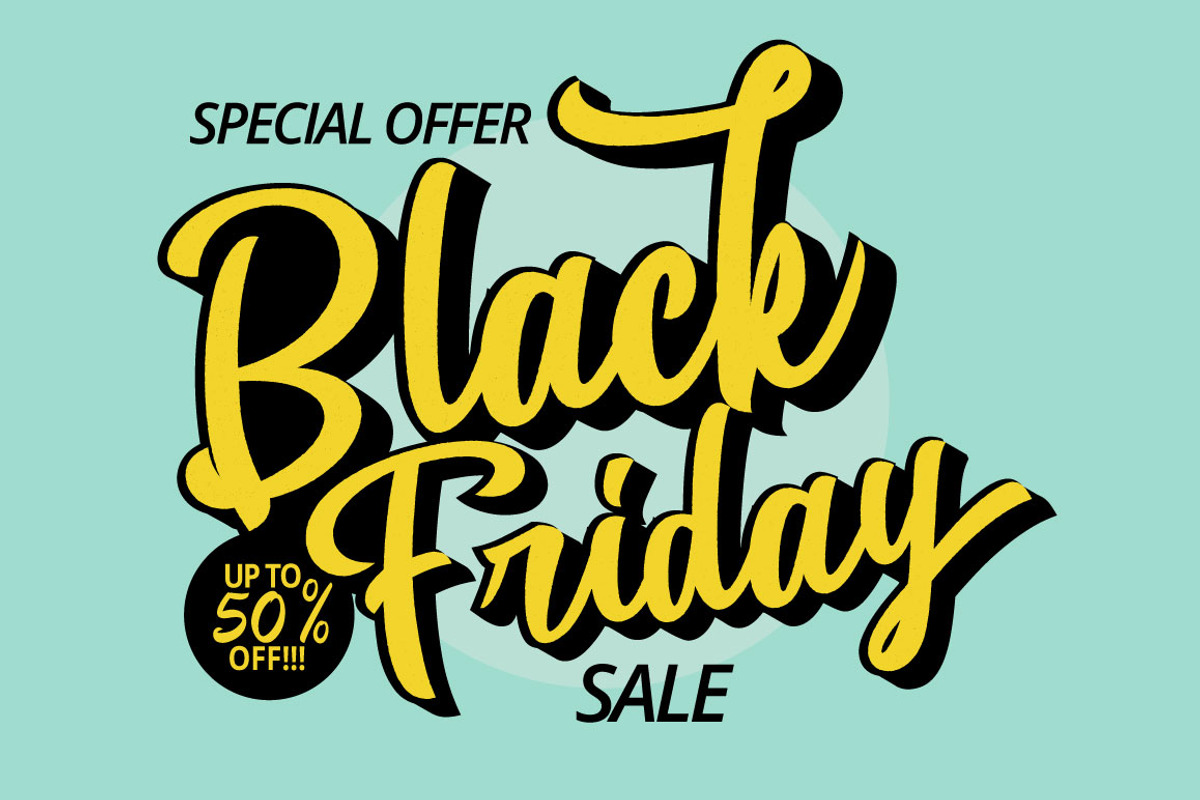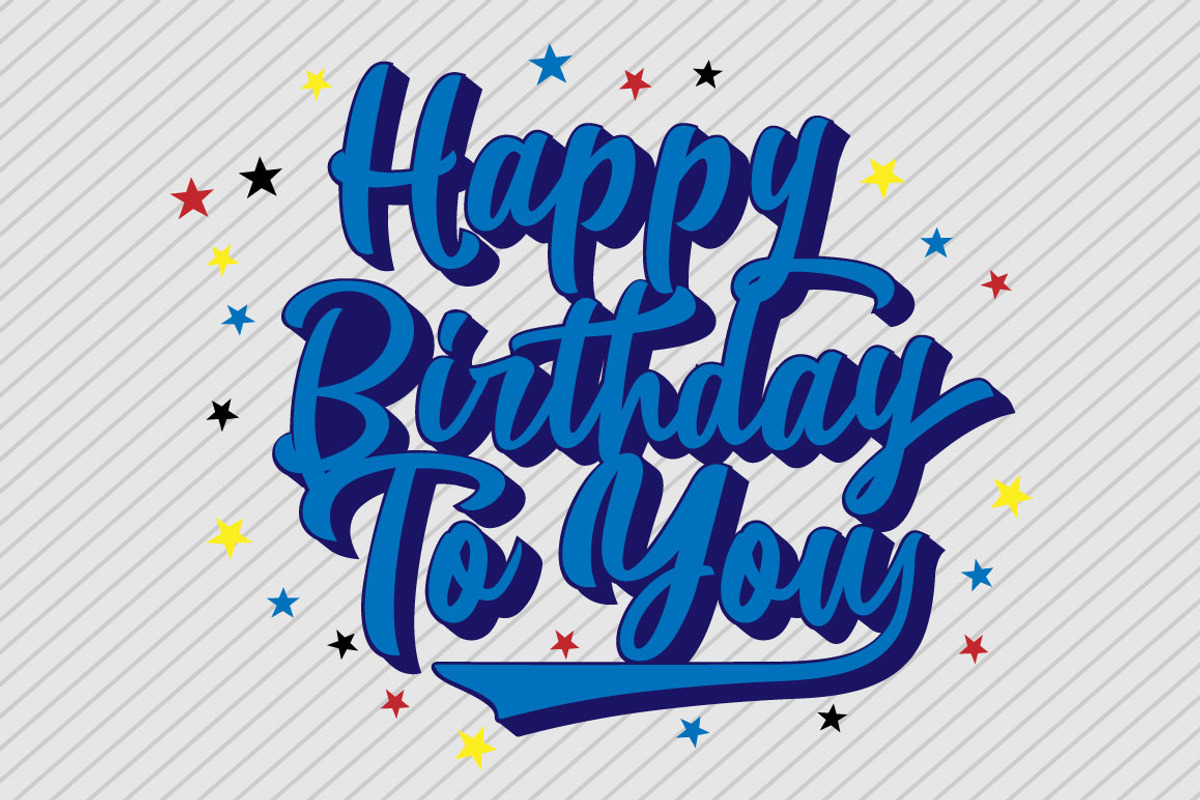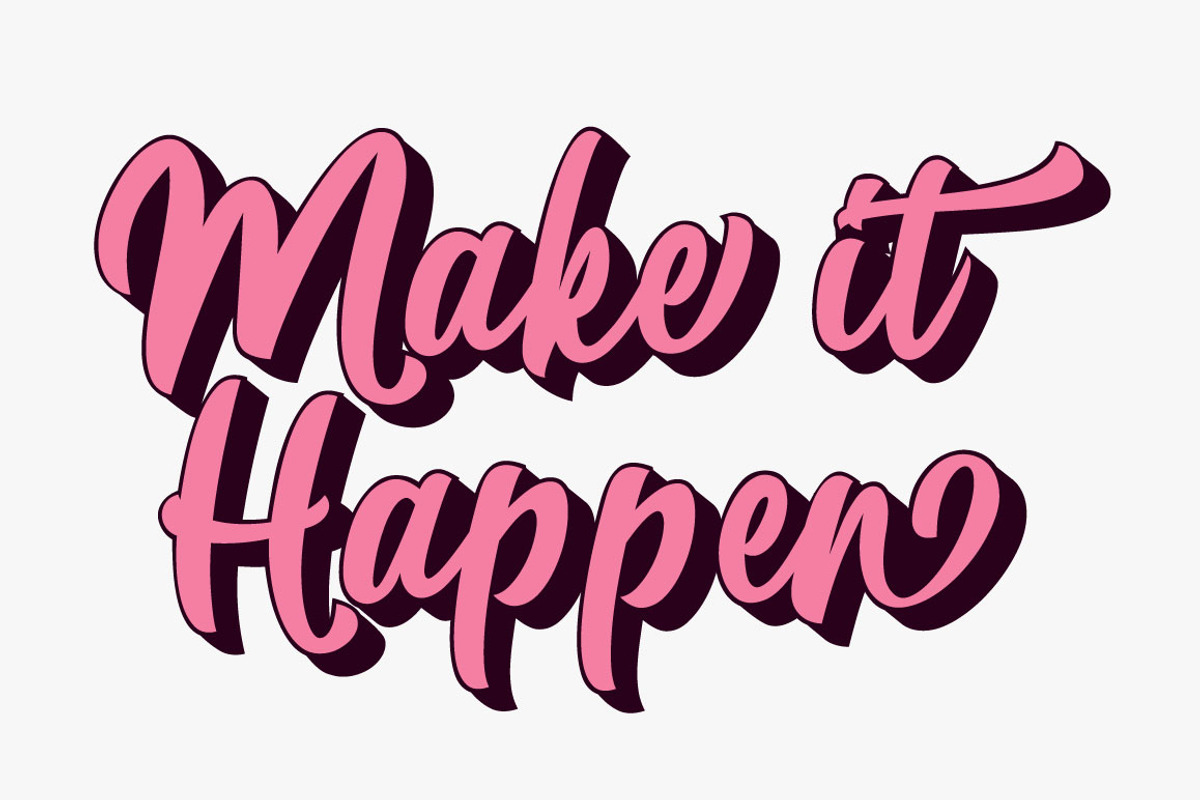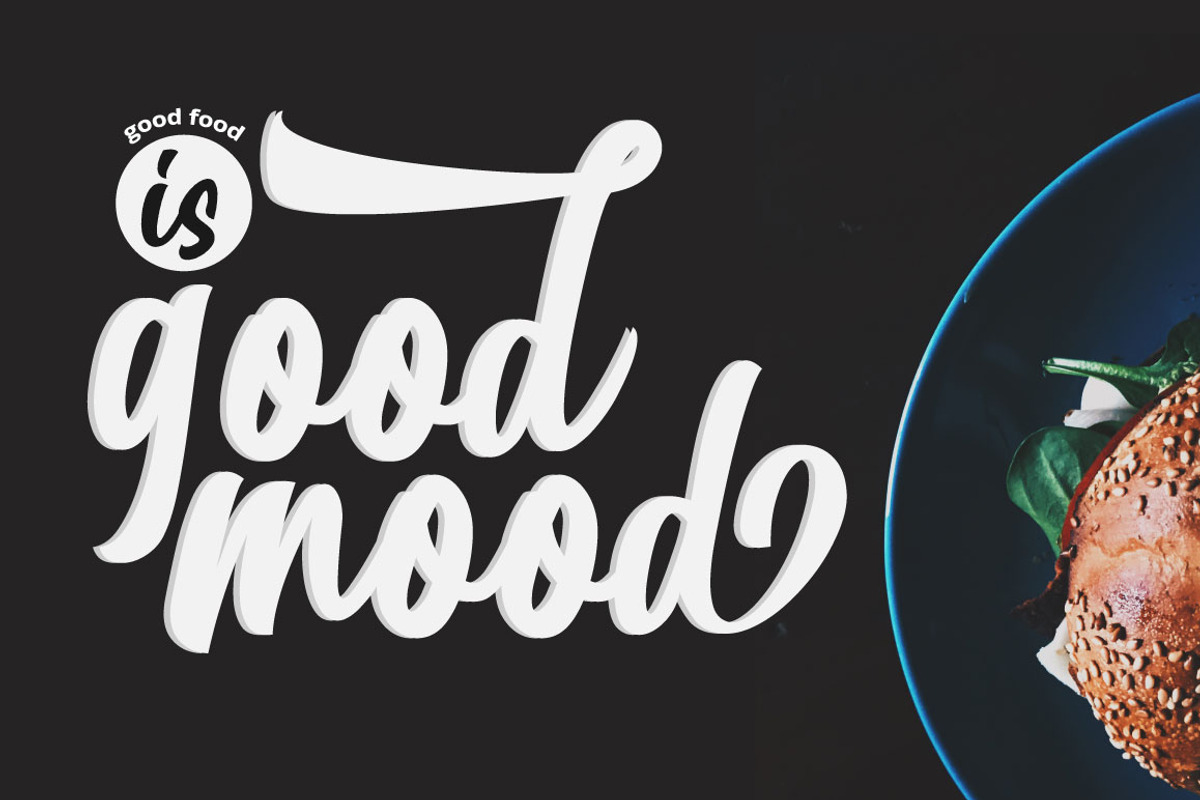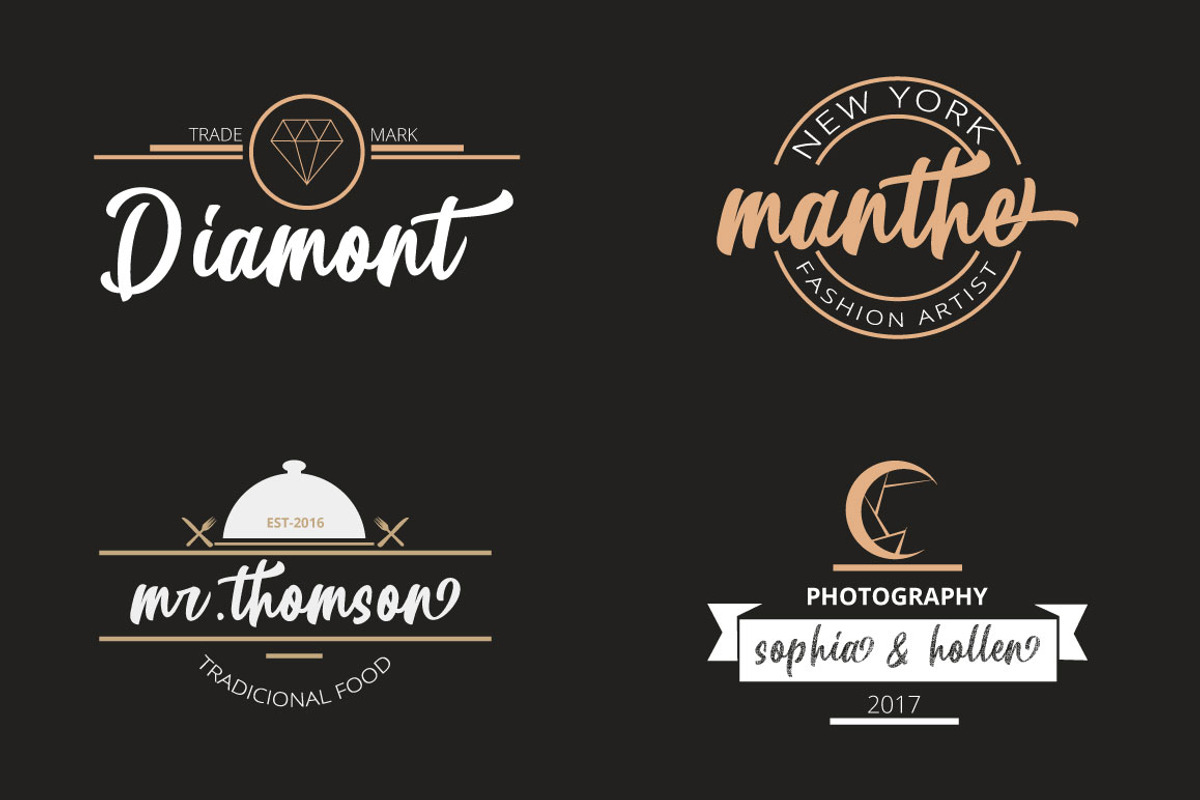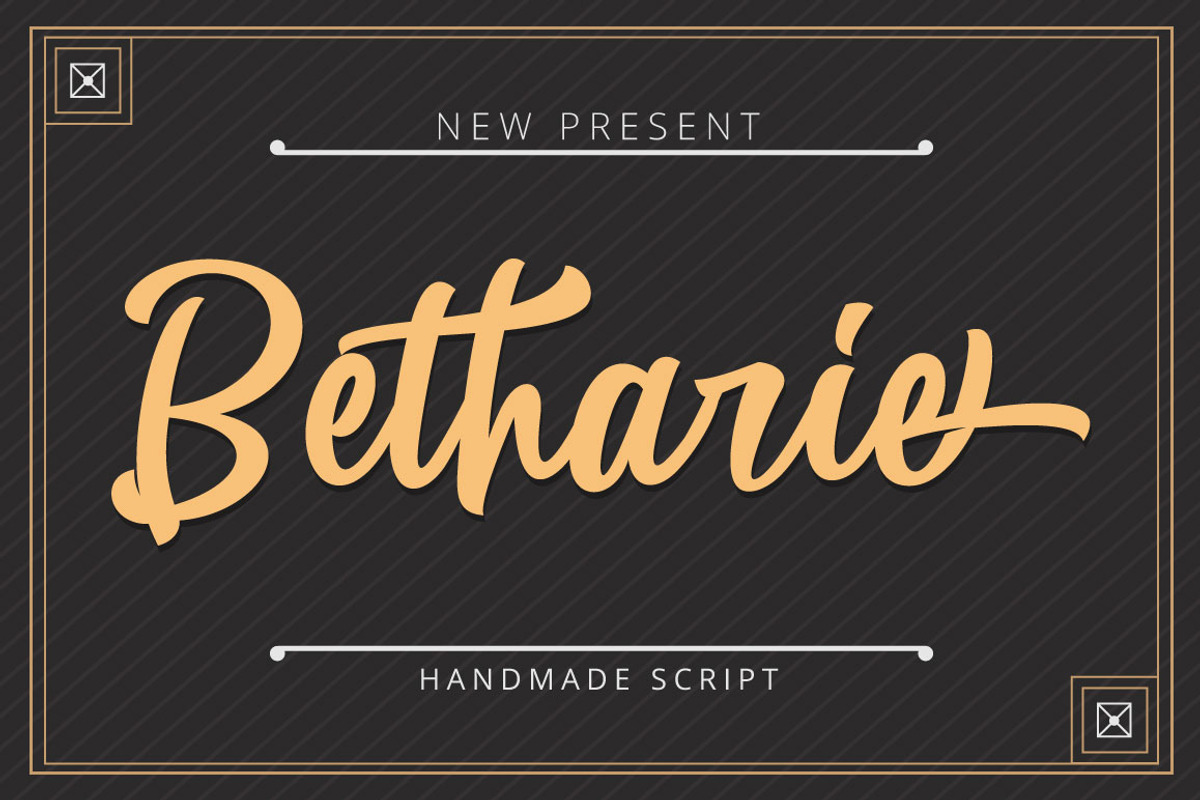
Betharie Typeface
Betharie Inspired by Retro style and combination with Hand Lettering style. I'm made with personality touch every single curve. I hope this can make inspire you from your work. and a very bouncy baseline It has a perfectly paired complimentary marker font , and a super handy set of bonus Swash. Ideal for logos, handwritten quotes, product packaging, header, poster, merchandise, social media & greeting cards.
Why Betharie Typeface is worth a look
Betharie Typeface by MSG Studio fits naturally into Branding, posters, packaging, typography.